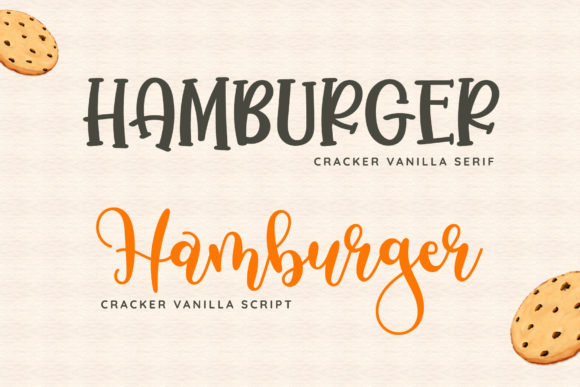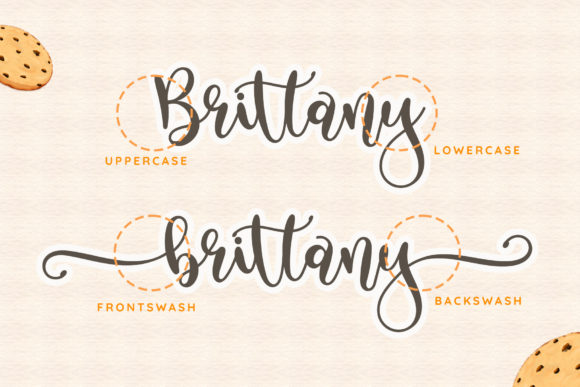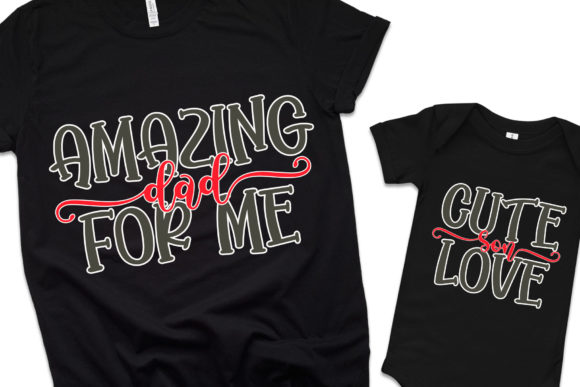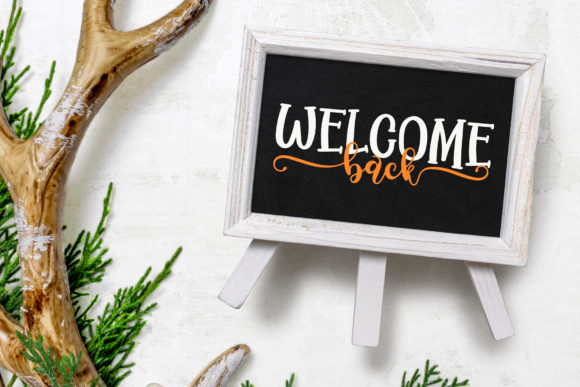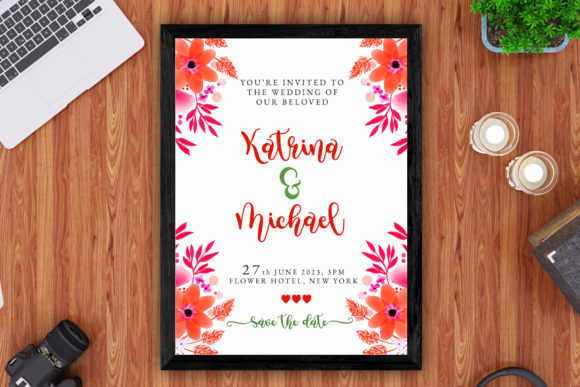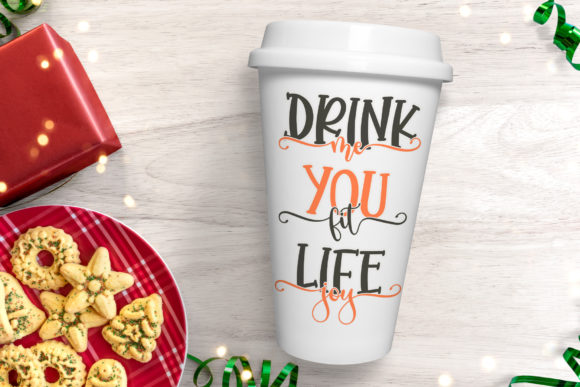
Cracker Vanilla Font: The Perfect Playful Duo for Your Creative Projects
Are you tired of using the same old fonts for your designs? Look no further than Cracker Vanilla Font, a playful and fun duo font that combines the elegance of serif fonts with the whimsy of handwritten fonts. This versatile font is perfect for adding a bright touch to any project, from t-shirt mockups and greeting cards to stickers, logos, and branding.
What is Cracker Vanilla Font?
Cracker Vanilla Font is a unique duo font that consists of two complementary fonts: a serif font and a handwritten font. The serif font is classic and sophisticated, while the handwritten font is playful and carefree. Together, they create a perfect balance of elegance and whimsy that can add a touch of personality to any design.
Key Features of Cracker Vanilla Font
- Playful and Fun: Cracker Vanilla Font is designed to add a playful and fun touch to your designs. Its unique combination of serif and handwritten fonts makes it perfect for projects that require a bright and cheerful vibe.
- Versatile: This font duo is incredibly versatile and can be used for a wide range of projects, from t-shirt mockups and greeting cards to stickers, logos, and branding.
- Elegant and Whimsical: The serif font in Cracker Vanilla Font is elegant and sophisticated, while the handwritten font is whimsical and carefree. This combination makes it perfect for designers who want to add a touch of personality to their designs.
- Easy to Read: Despite its playful nature, Cracker Vanilla Font is easy to read and can be used for both headings and body text.
Uses of Cracker Vanilla Font
Cracker Vanilla Font is perfect for a wide range of design projects, including:
- T-Shirt Mockups: Add a playful touch to your t-shirt designs with Cracker Vanilla Font. Its fun and carefree vibe makes it perfect for creating eye-catching designs.
- Greeting Cards: Create beautiful and unique greeting cards with Cracker Vanilla Font. Its elegant and whimsical combination makes it perfect for special occasions.
- Stickers: Add a touch of personality to your stickers with Cracker Vanilla Font. Its playful and fun nature makes it perfect for creating eye-catching stickers.
- Logo and Branding: Use Cracker Vanilla Font to create a unique and memorable logo for your brand. Its elegant and whimsical combination makes it perfect for creating a brand identity that stands out.
Tips for Using Cracker Vanilla Font
Here are some tips for using Cracker Vanilla Font in your designs:
- Mix and Match: Experiment with different combinations of the serif and handwritten fonts to create a unique look that suits your design.
- Play with Colors: Cracker Vanilla Font looks great in bright and bold colors. Experiment with different color combinations to add a pop of color to your design.
- Use for Headings and Body Text: Cracker Vanilla Font is easy to read and can be used for both headings and body text. Experiment with different font sizes and styles to create a visually appealing design.
Cracker Vanilla Font is a playful and fun duo font that is perfect for adding a bright touch to any design project. Its unique combination of serif and handwritten fonts makes it versatile and elegant, while its playful nature makes it perfect for creating eye-catching designs. Whether you’re a designer or a crafter, Cracker Vanilla Font is a must-have font duo that can take your designs to the next level.